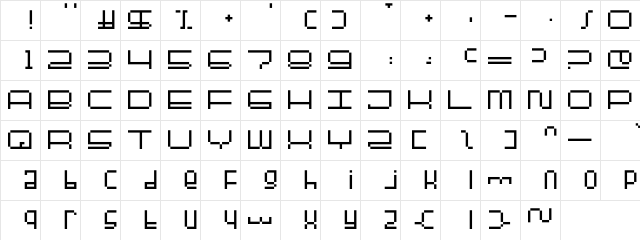
FULLERBTMP Regular
Design Context for FULLERBTMP Typeface
FULLERBTMP is a composed and adaptable typeface that performs quietly and consistently across a wide range of design contexts.
Pro Tip: Use FULLERBTMP in both headline and body roles to test its range before committing to a single application.